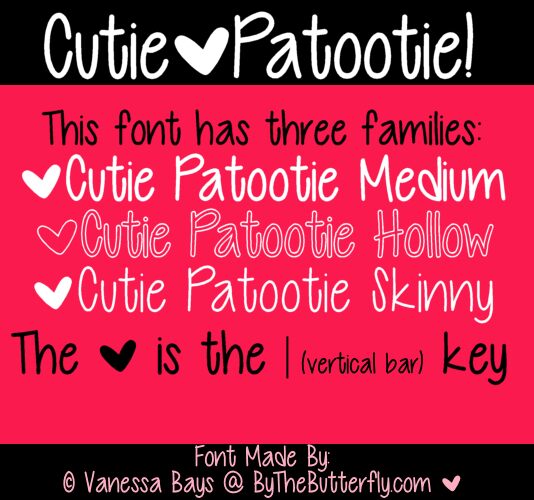
Cutie Patootie Hollow by Vanessa Bays is a free outlined handwritten display font with tall, loosely drawn letters, noticeably varied heights, and an easygoing homemade look. Its uneven curves and softly rounded ends keep the narrow forms lively.
Themes of childhood crafts and cheerful celebration make it a natural fit for party invitations, classroom posters, and children's publishing, especially when the lettering can echo doodles or marker drawings. On gift packaging and casual event graphics, the hollow letterforms can become part of a coloring-book motif or a hand-drawn border rather than serving as neutral text in the finished artwork itself.
Cutie Patootie Hollow
Vanessa Bays: Cutie Patootie Hollow
Vanessa Bays